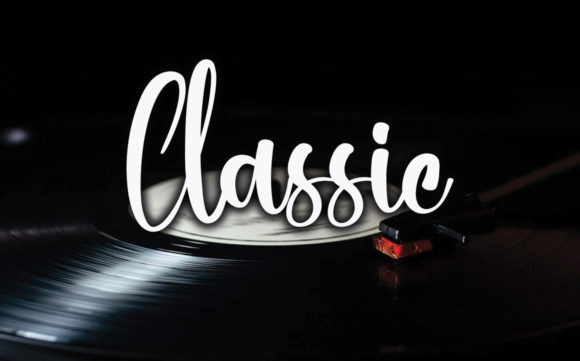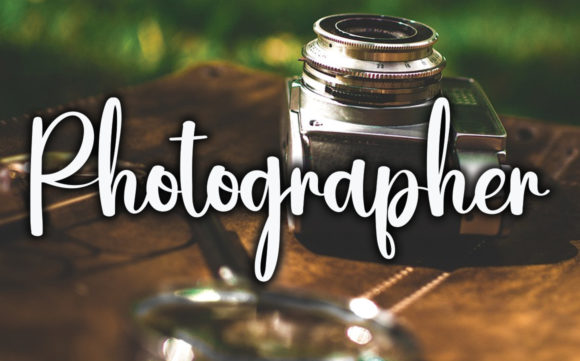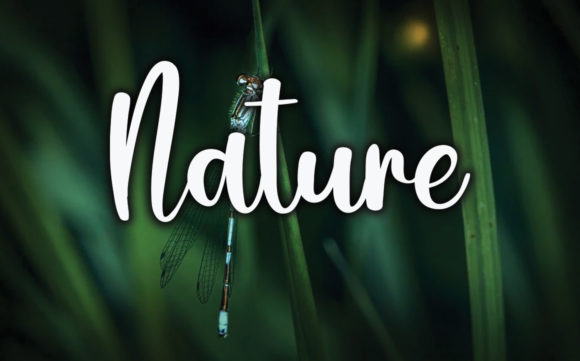
About Doodle Font
Doodle is a beautiful and flowing handwritten font. Use it for wall displays, wedding invitations, social media post logos, advertisements, product packaging, product designs, labels, photography, and any project that requires impressive typography.